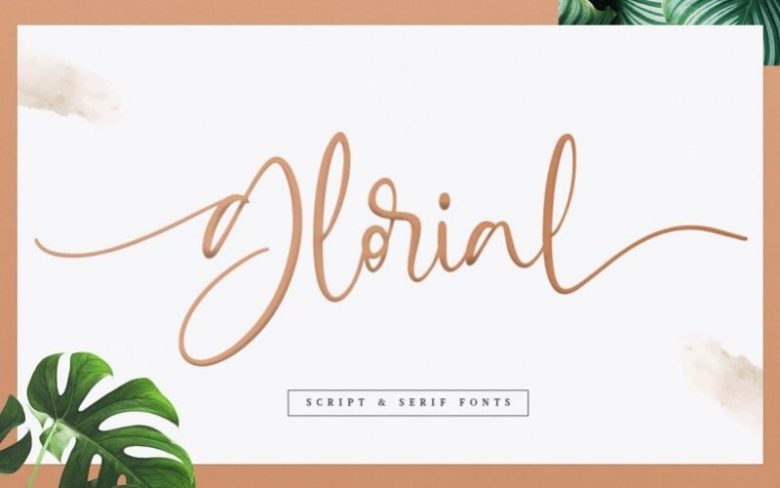
Glorial Handwritten Font
Glorial Script includes a full set of uppercase & lowercase letters with beginning swashes , a full set of lowercase letters with ending swashes, a full set of contextual alternates lowercase letters , 50+ ligatures features that makes the font look more natural.